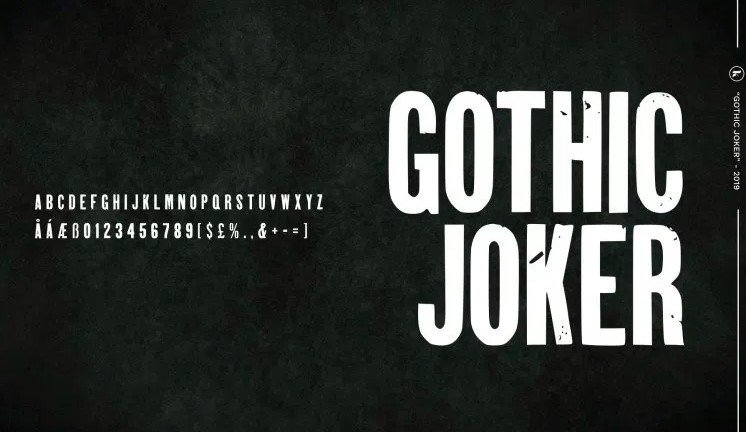
It is the best modern and unique design typeface that has high readability factor which can be used with the mixing of two fonts with trolls movie for getting
We are excited to present another fantastic display typeface, the Gothic Joker Display Font. This remarkable retro typeface draws its inspiration from handcrafted styles. You can effortlessly apply its six unique handcrafted styles to your projects, achieving an outstanding design outcome.
It is the best modern and unique design typeface that has high readability factor which can be used with the mixing of two fonts with trolls movie for getting more attractivity and a great look into your projects.